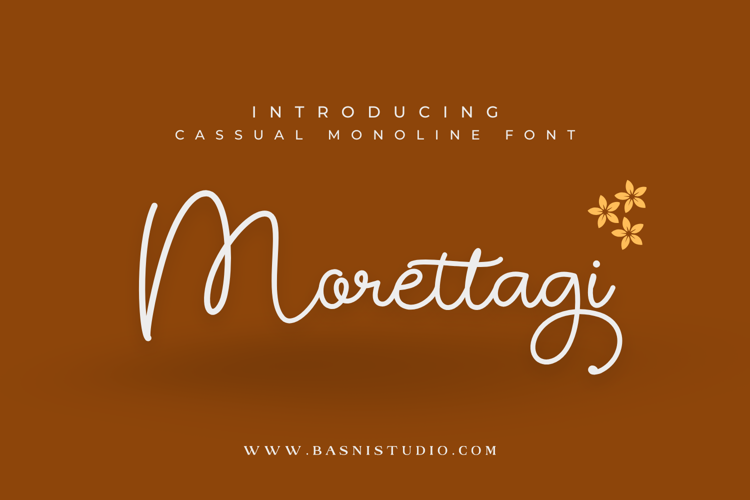
Morettagi Font
INTRODUCING Morettagi a Casual Monoline Font
Morettagi, a beautifully crafted monoline script that flows effortlessly like a handwritten love letter.